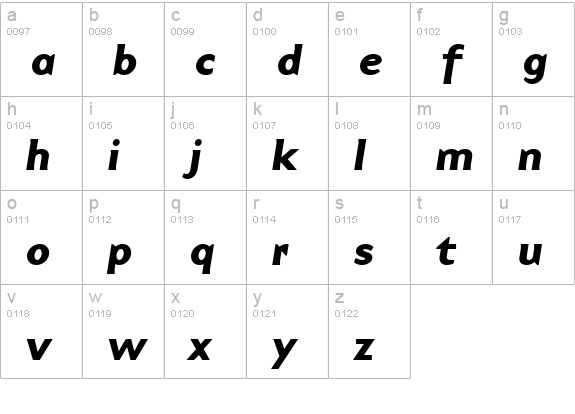
BaseNine Bold Italic is a strong, high-contrast, italic variant in the BaseNine typeface family \xE2\x80\x94 well suited to headlines, attention-grabbing titles, and strong calls-to-action.
BaseNine Bold Italic font is a striking and dynamic typeface that combines the boldness of a sans-serif with the elegance of italics. Its sleek and modern design makes it perfect for headlines, logos, and other eye-catching design projects. The robust weight of the bold characters is balanced by the graceful slant of the italics, creating a harmonious and versatile font. Best of all, BaseNine Bold Italic font is completely free to download at FontsMarket.com. This means you can enhance your design projects with this stunning font without any cost. Don't miss out on the opportunity to add this unique and impactful typeface to your collection. Download BaseNine Bold Italic font today and take your designs to the next level!